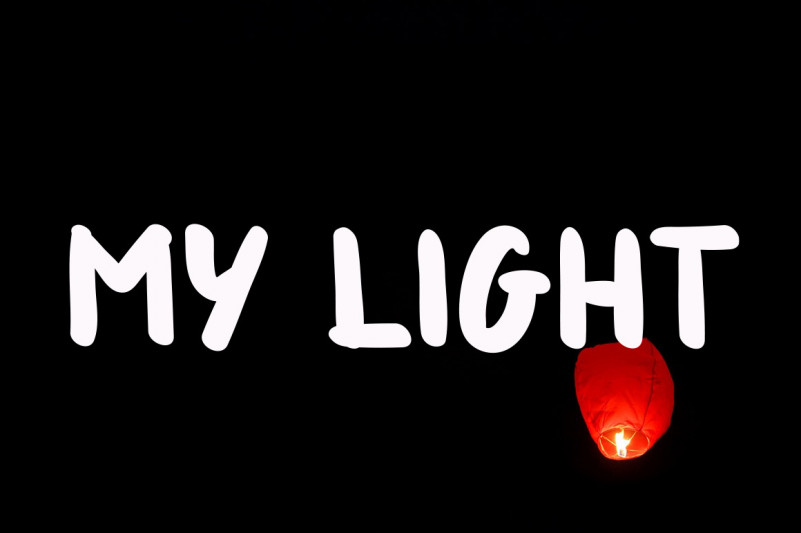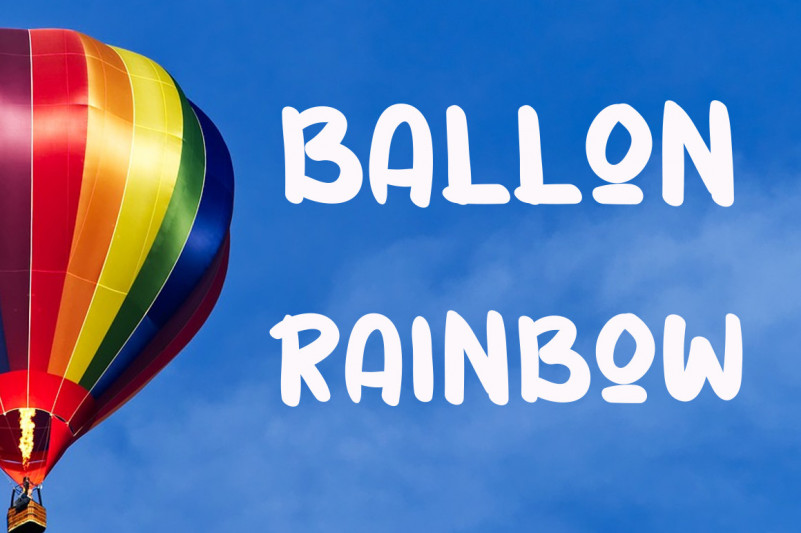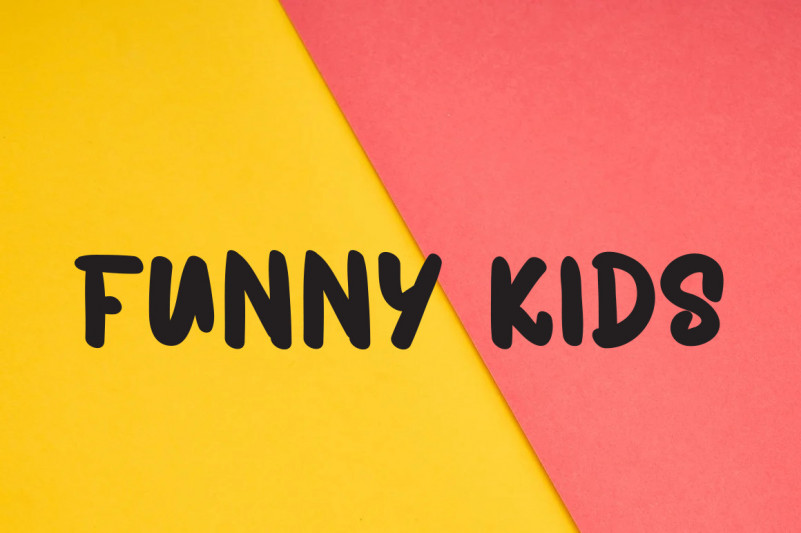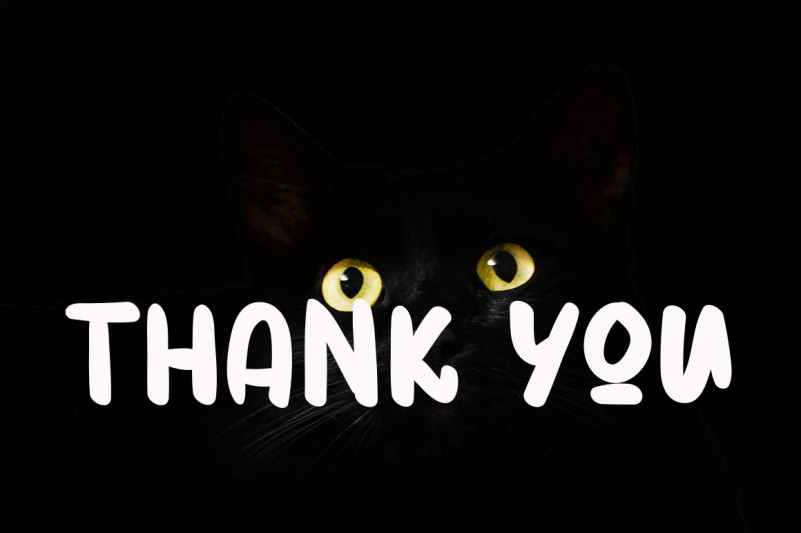
Vintage Rainbow Font
Vintage Rainbow Display Font
This is a cute, thick lettered and jolly display font. This fun and friendly font will look lovely on a variety of design ideas, related to either children, baby showers or pre-school.